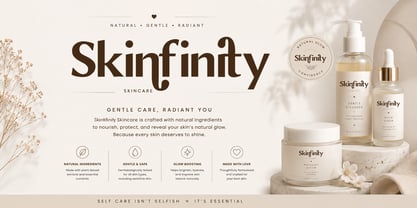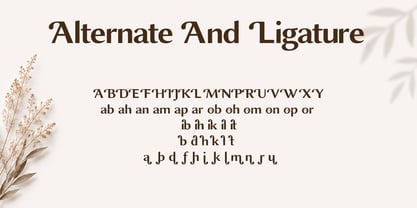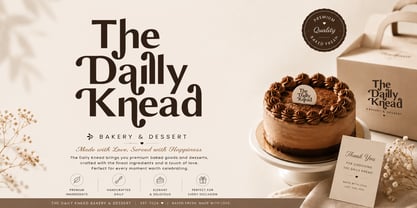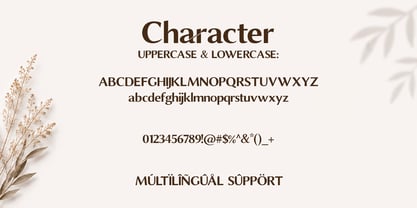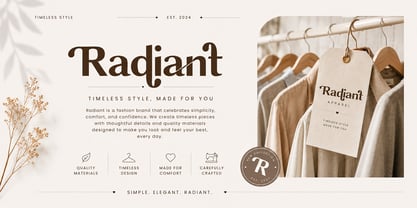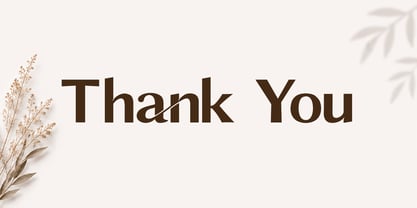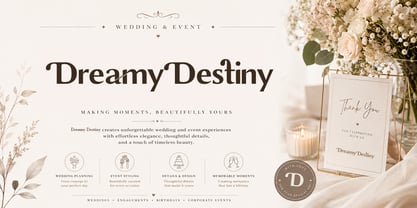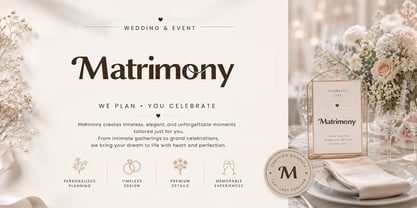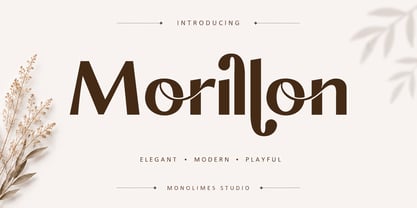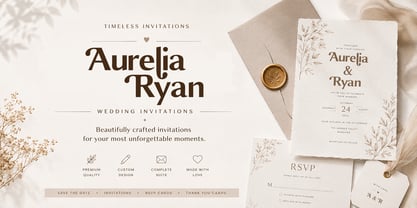
Morillon
Morillon is a sophisticated modern display serif font that blends timeless elegance with contemporary charm.
Featuring graceful swashes, soft curves, and bold letterforms, Morillon is perfect for creating luxurious logos, fashion branding, wedding invitations, skincare packaging, bakery branding, beauty products, editorial headlines, social media graphics, and premium marketing materials.
Its refined yet playful personality makes every design feel distinctive, stylish, and memorable.
Whether you're building a luxury brand or crafting elegant print designs, Morillon delivers exceptional visual impact with effortless sophistication.